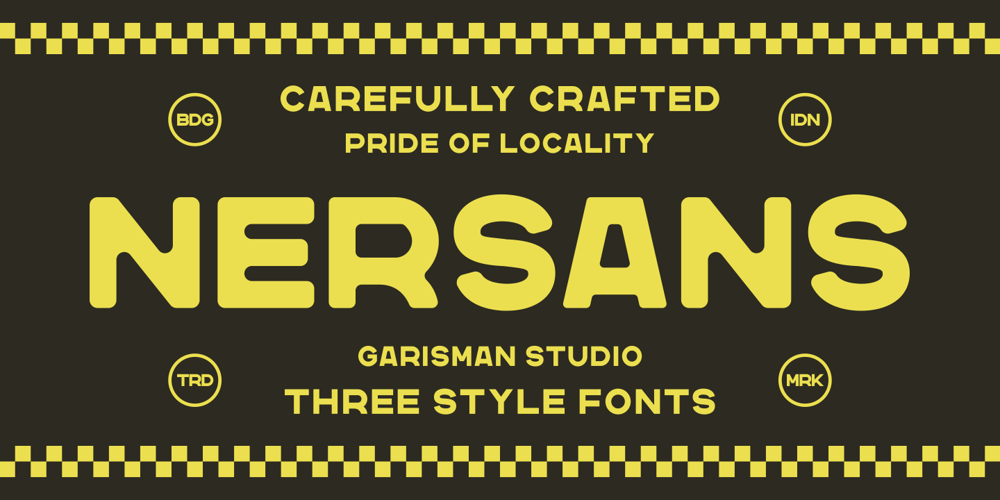
Nersans
Nersans font
Nersans Font Family was designed by Risman Ginarwan and published by Garisman Studio. Nersans contains 5 styles and family package options. Nersans – Vintage Font with 3 StylesNersans born from an inspiring vintage display with all caps glyphs. This font gives a feel of a vintage, classic, old, handmade looked like. Already PUA Encoded and I think this font is perfect for people looking for vintage aesthetic or logo-type. Suitable for any graphic designs such as branding materials, t-shirt, print, business cards, logo, poster, t-shirt, photography, quotes .etc.